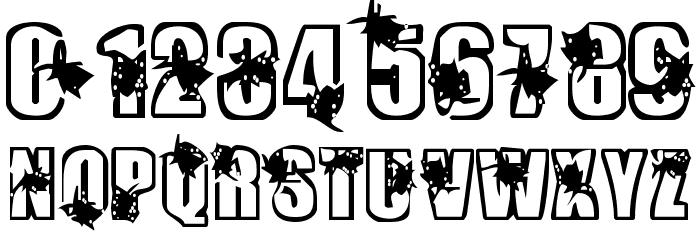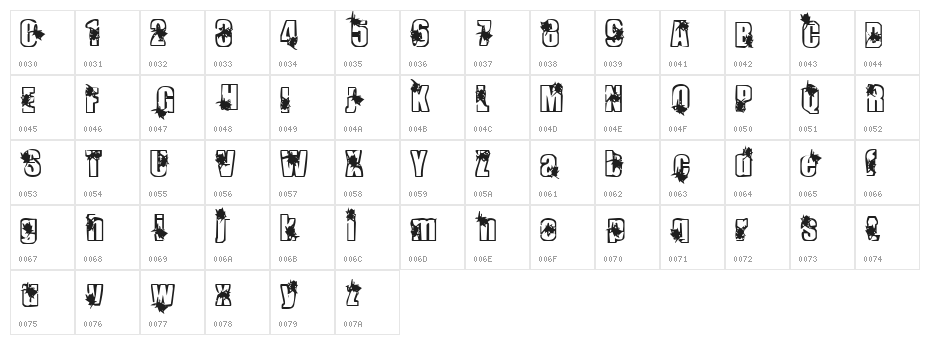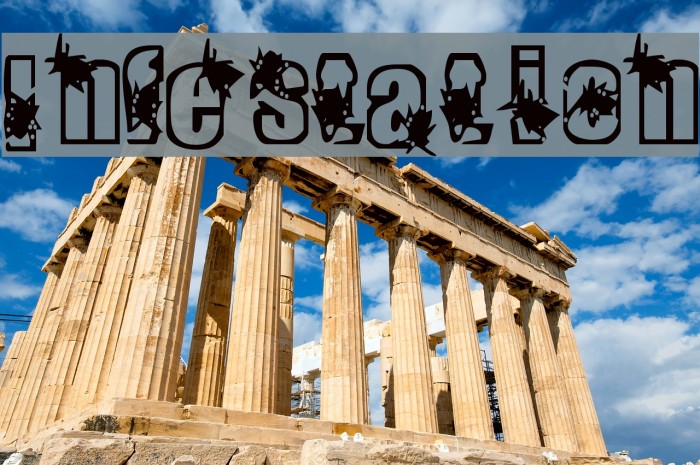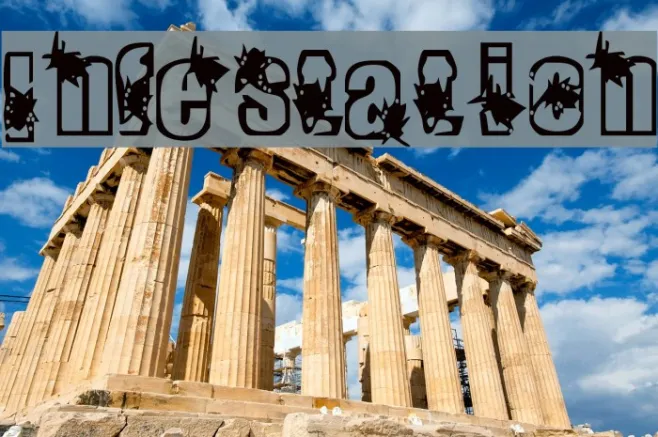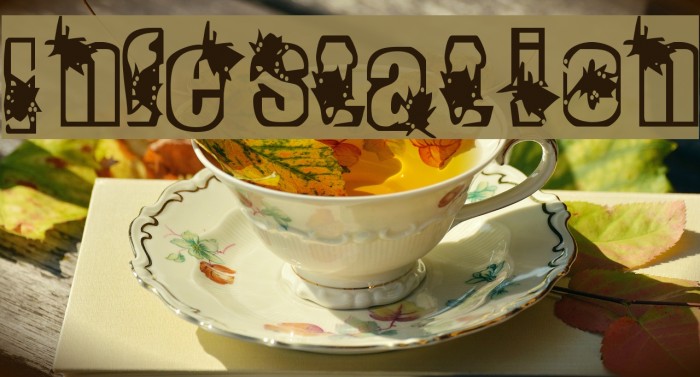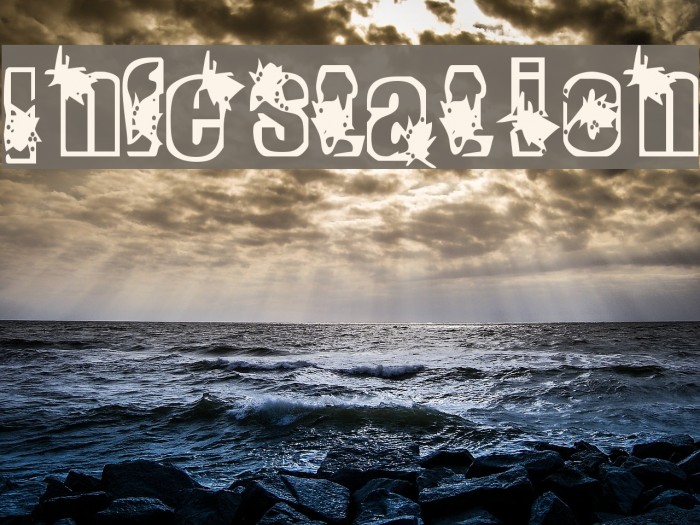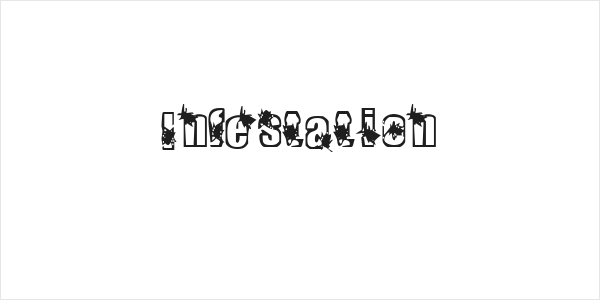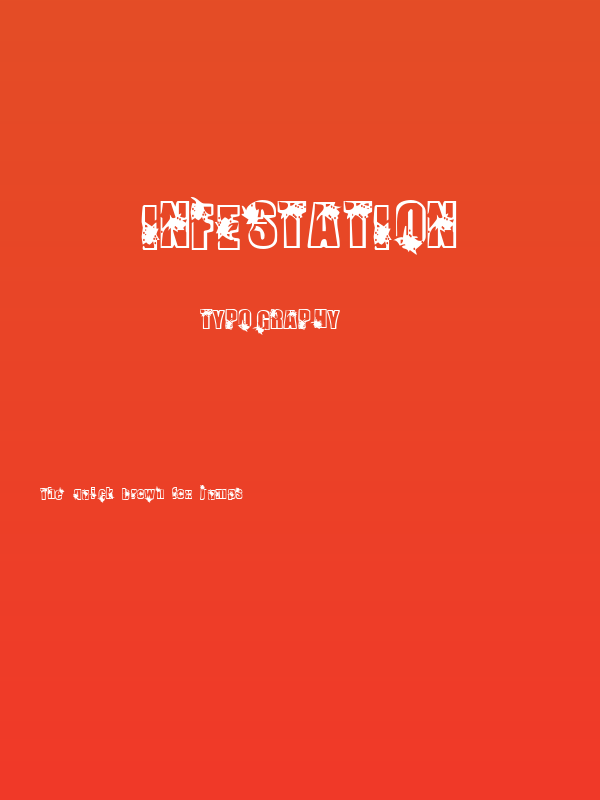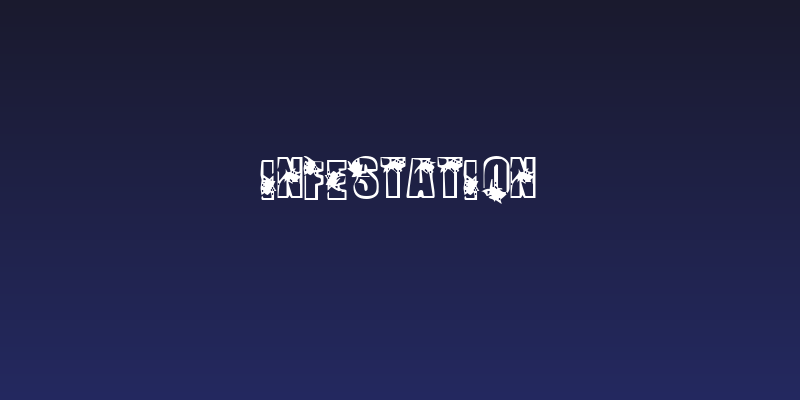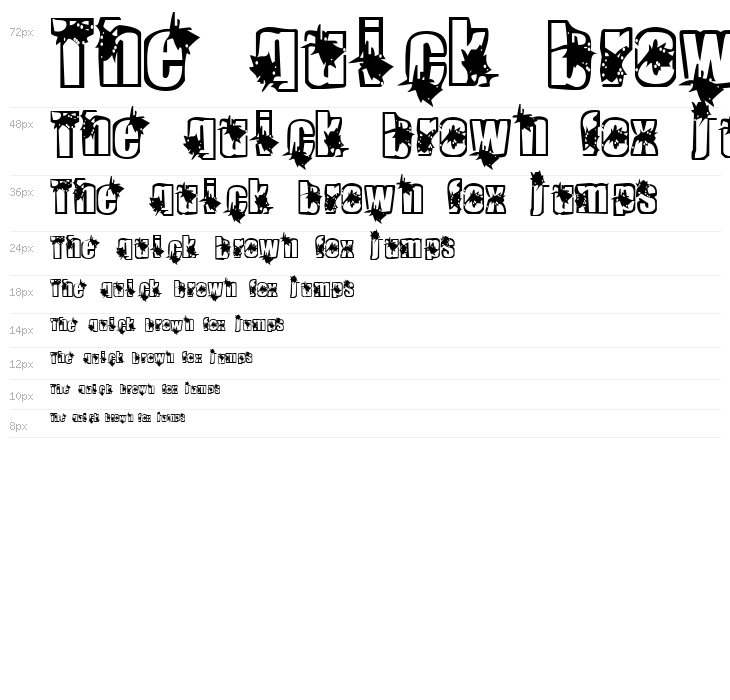
Infestation Font
Infestation Description
This font features a bold, decorative style with a unique twist. Each character is adorned with intricate, leaf-like shapes that appear to be 'infesting' the letters, creating a dynamic and visually striking effect. The letters are outlined, giving them a hollow appearance, which enhances the decorative elements. The uppercase and lowercase letters maintain a consistent style, while the numbers and special characters follow suit, ensuring a cohesive look. This font is perfect for projects that require a bold statement or a nature-inspired theme.
| Use Case | Headlines, Posters, Themed Events |
| Proposed Projects | Ideal for Halloween-themed designs, nature-inspired posters, or any project needing a bold, eye-catching font. |